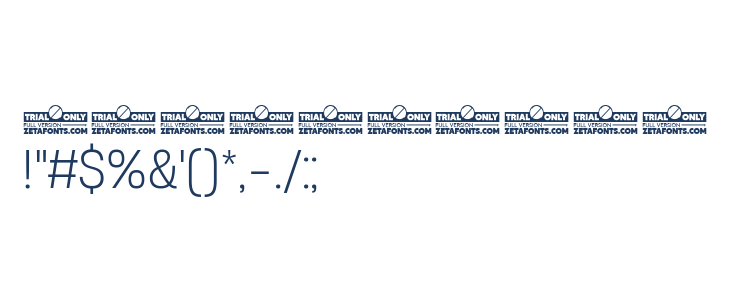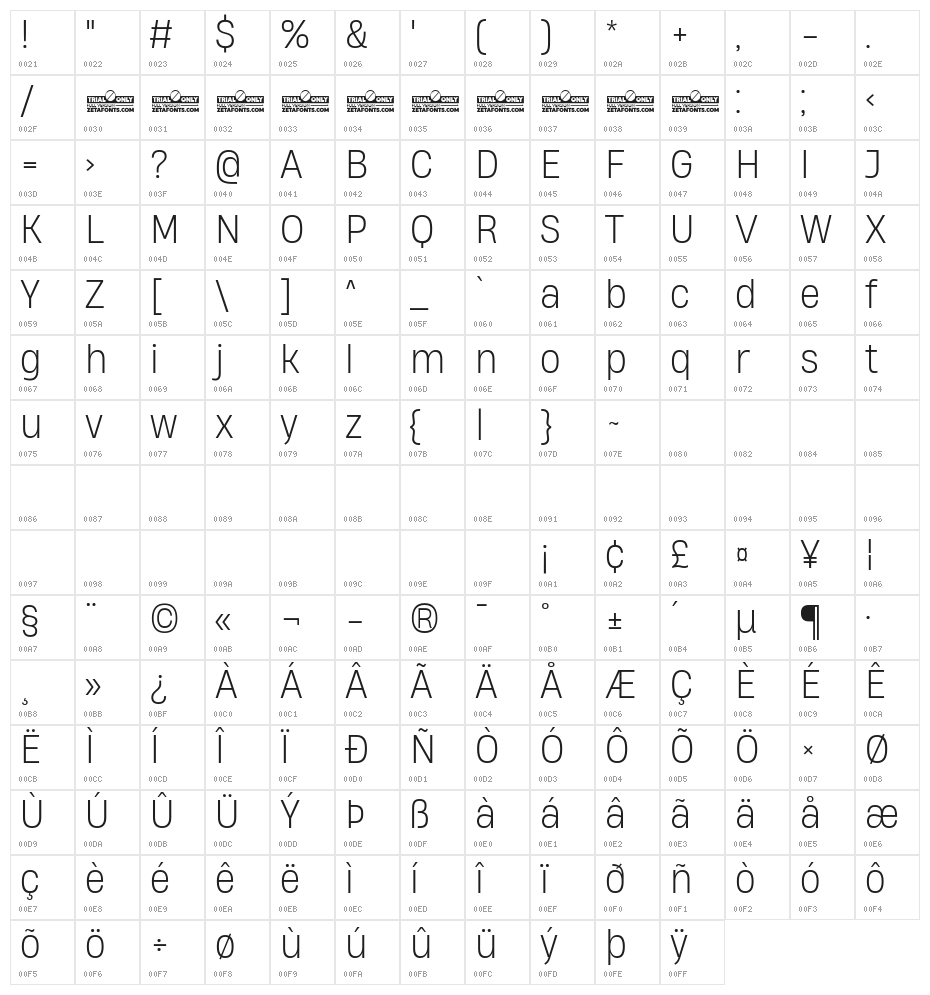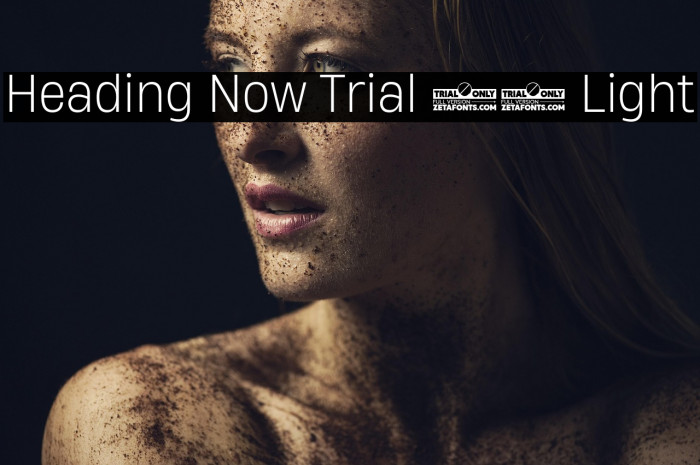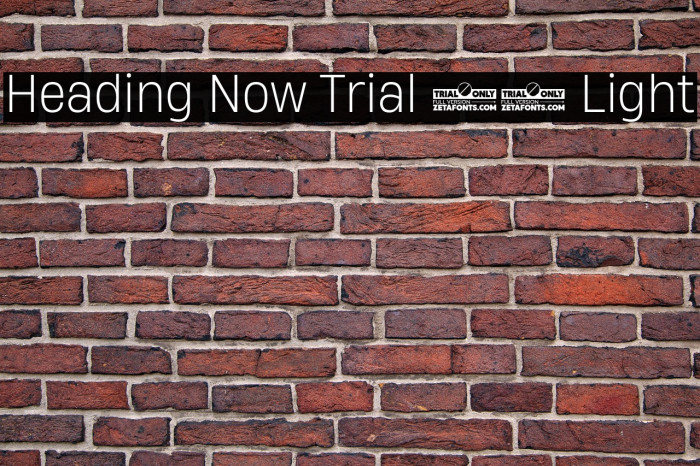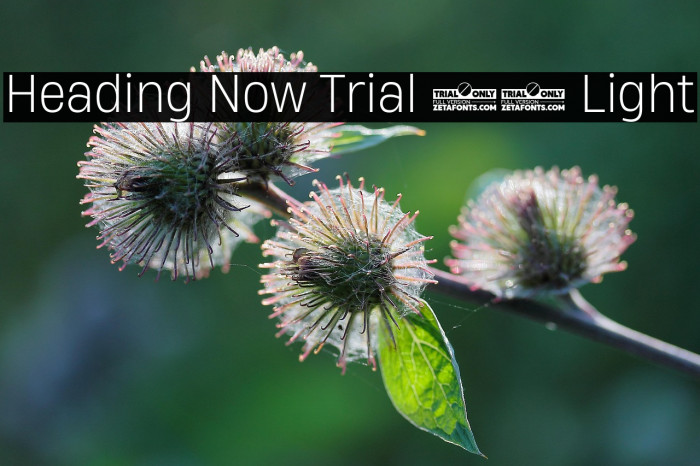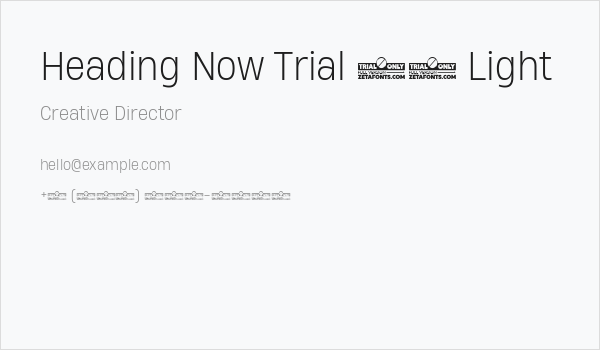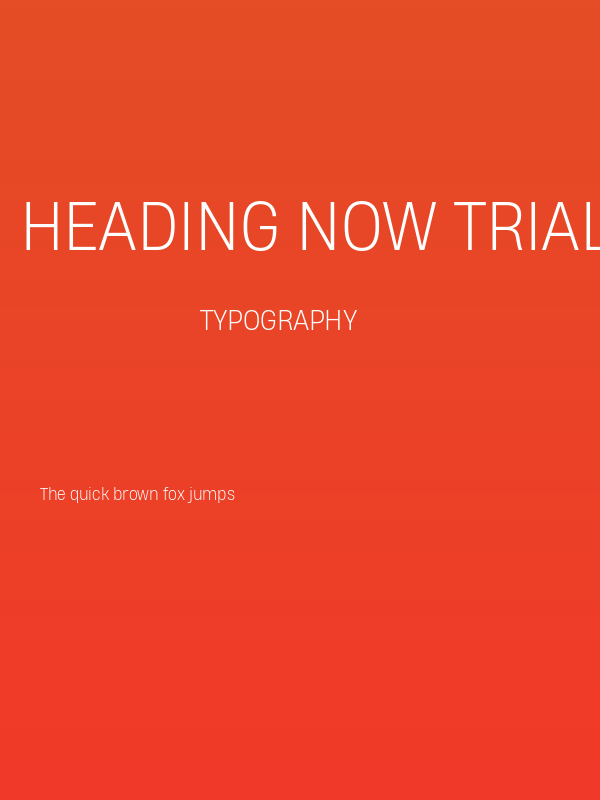
Heading Now Trial 62 Light Font
Heading Now Trial 62 Light Description
This font presents a clean and modern aesthetic with a sans-serif style. It features a uniform stroke width, contributing to a minimalist and contemporary appearance. The characters are well-proportioned, with a slight geometric influence that enhances readability. The uppercase and lowercase letters maintain a consistent height, while the numerals and special characters are designed to complement the overall style. This font is versatile, suitable for both digital and print media, and can be used effectively in various design contexts.
| Proposed Projects | Ideal for branding, web design, corporate materials, and editorial layouts. |